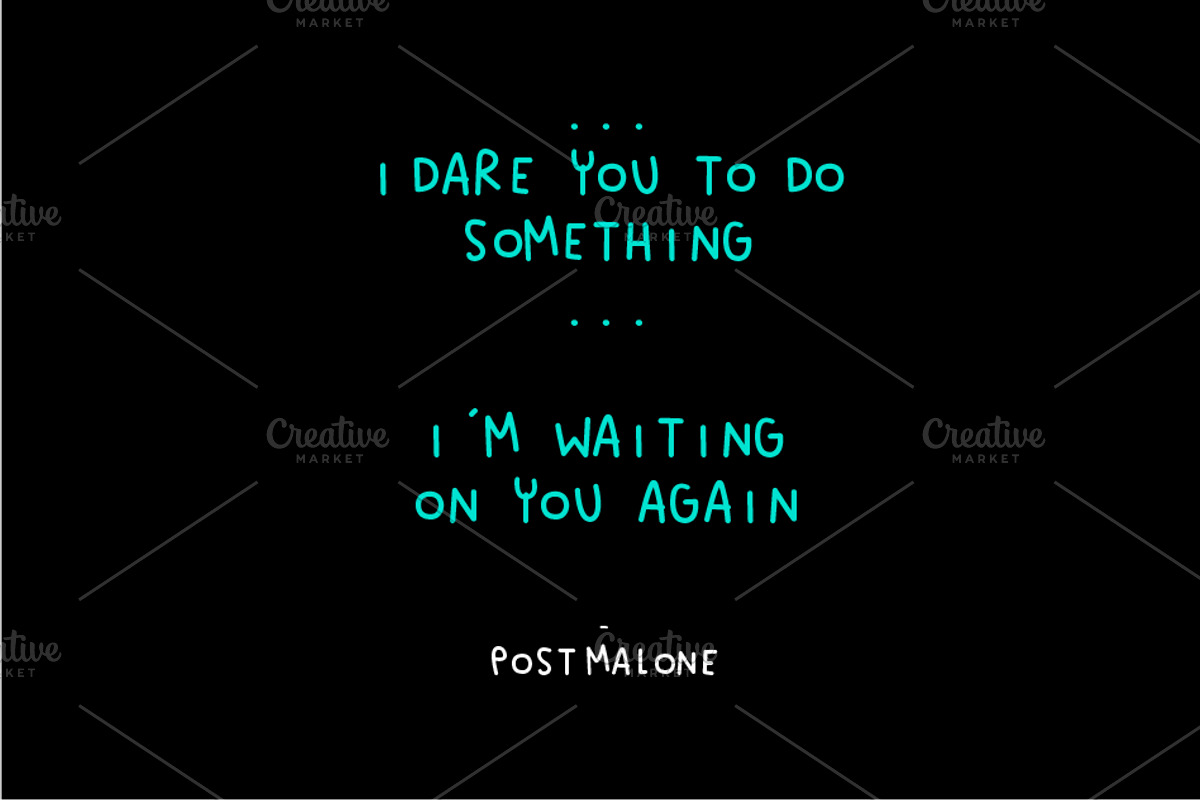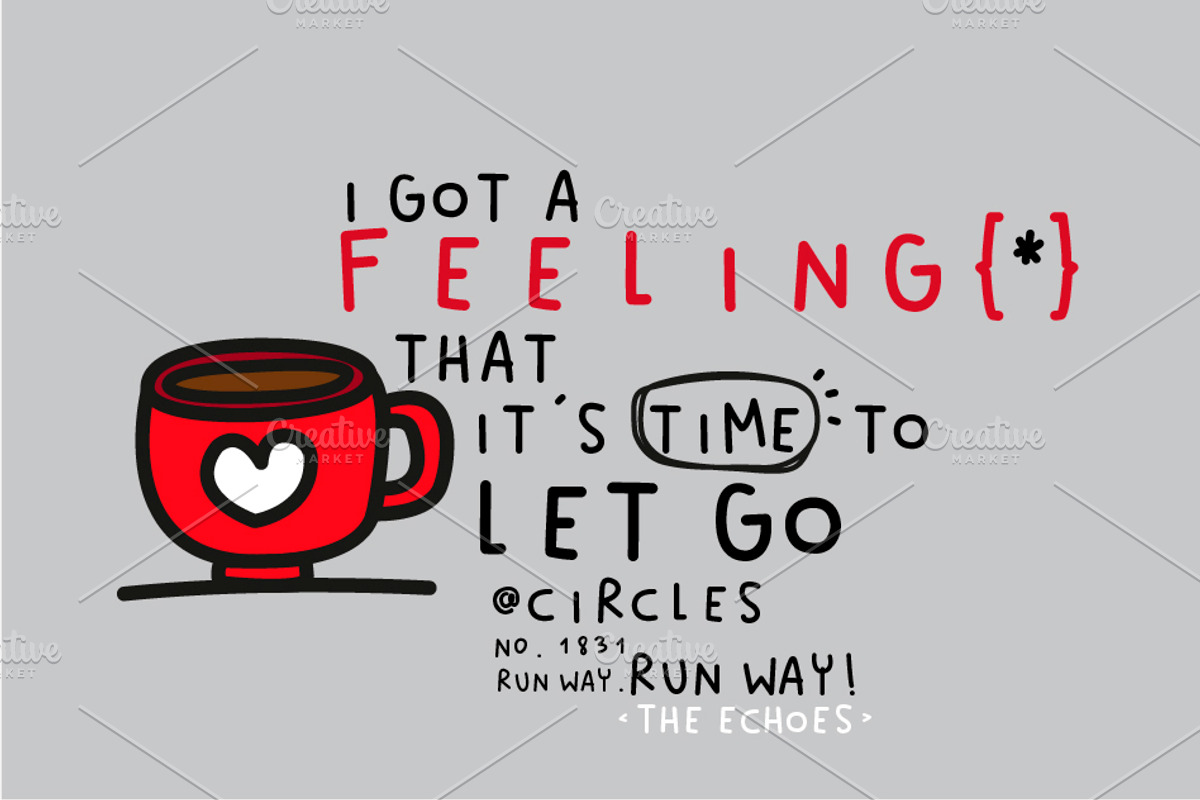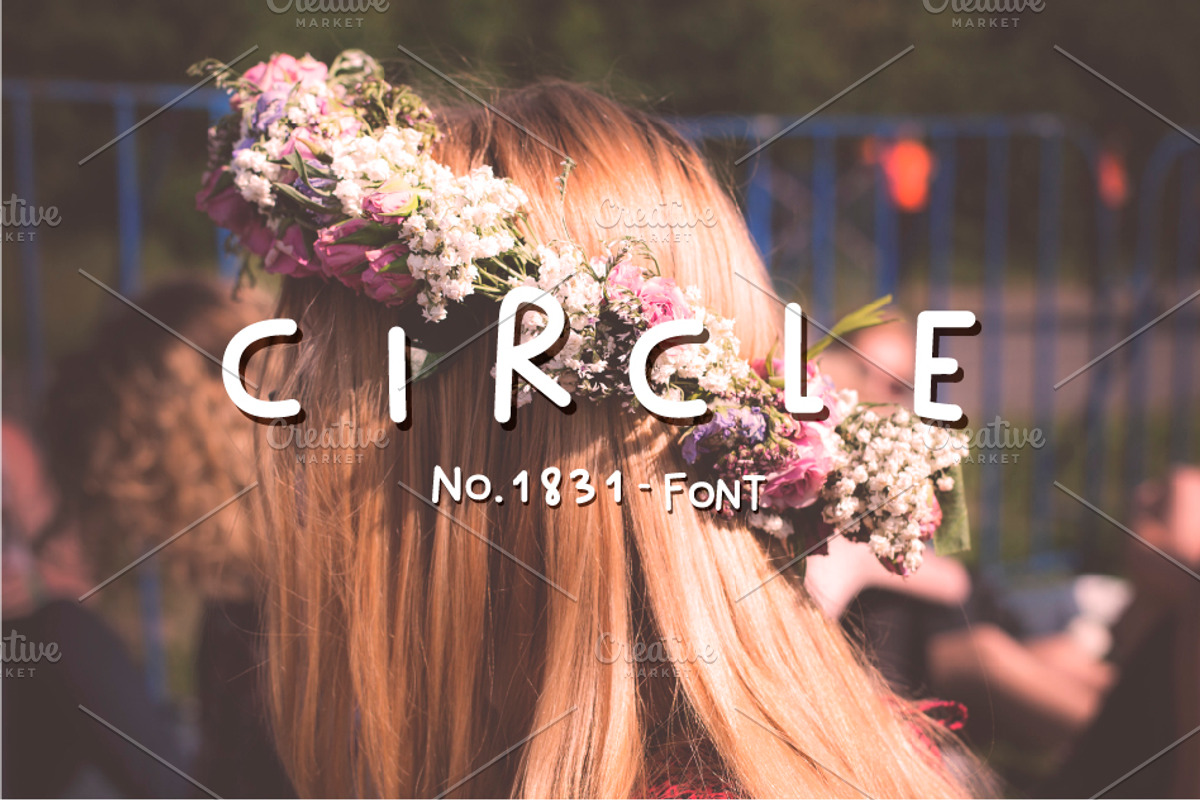
Circle No. 1831 font
CIRCLE No. 1831 by Himoki-Tania Domínguez
Why Circle No. 1831 font is worth a look
Circle No. 1831 font by himoki fits naturally into Branding, posters, packaging, typography.